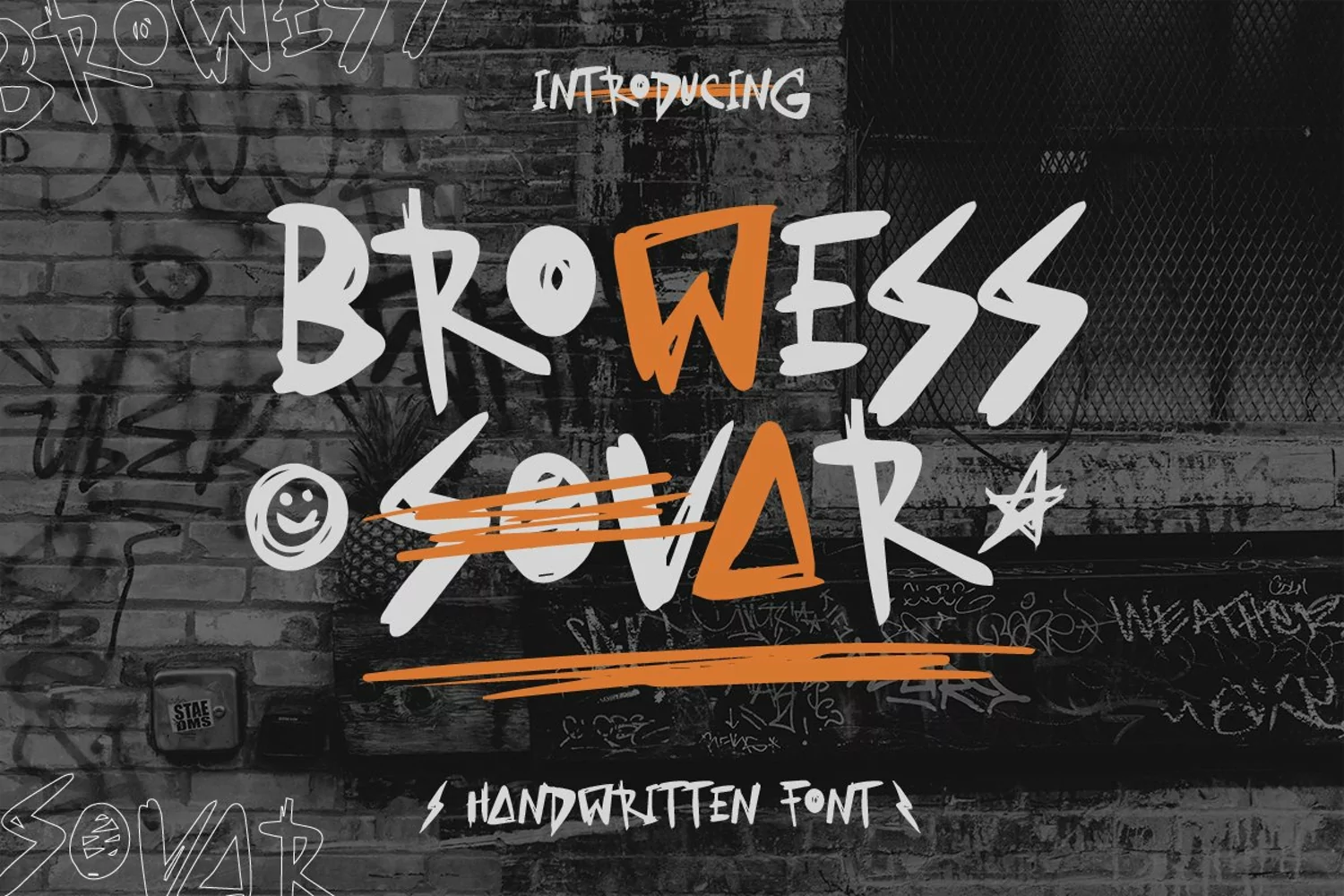
Created By Ronny Studio
Browess Sovar - Handwritten Font
Browess Sovar of handwritten custom letter combinations make this font look like it was scrawled with a pen, not typed with a computer. These characters belong next to each other... that's how the natural flow and messy style is achieved. You won't see many duplicate letter styles here. Add it with confidence to your projects, and you'll love the results. This typeface is perfect for logos, branding, promotions, book covers, magazine layouts, or simply as a stylish text overlay onto any background image.
- Lowercase & Uppercase ( All Caps )
- numbers and punctuation
- multilingual
- alternates